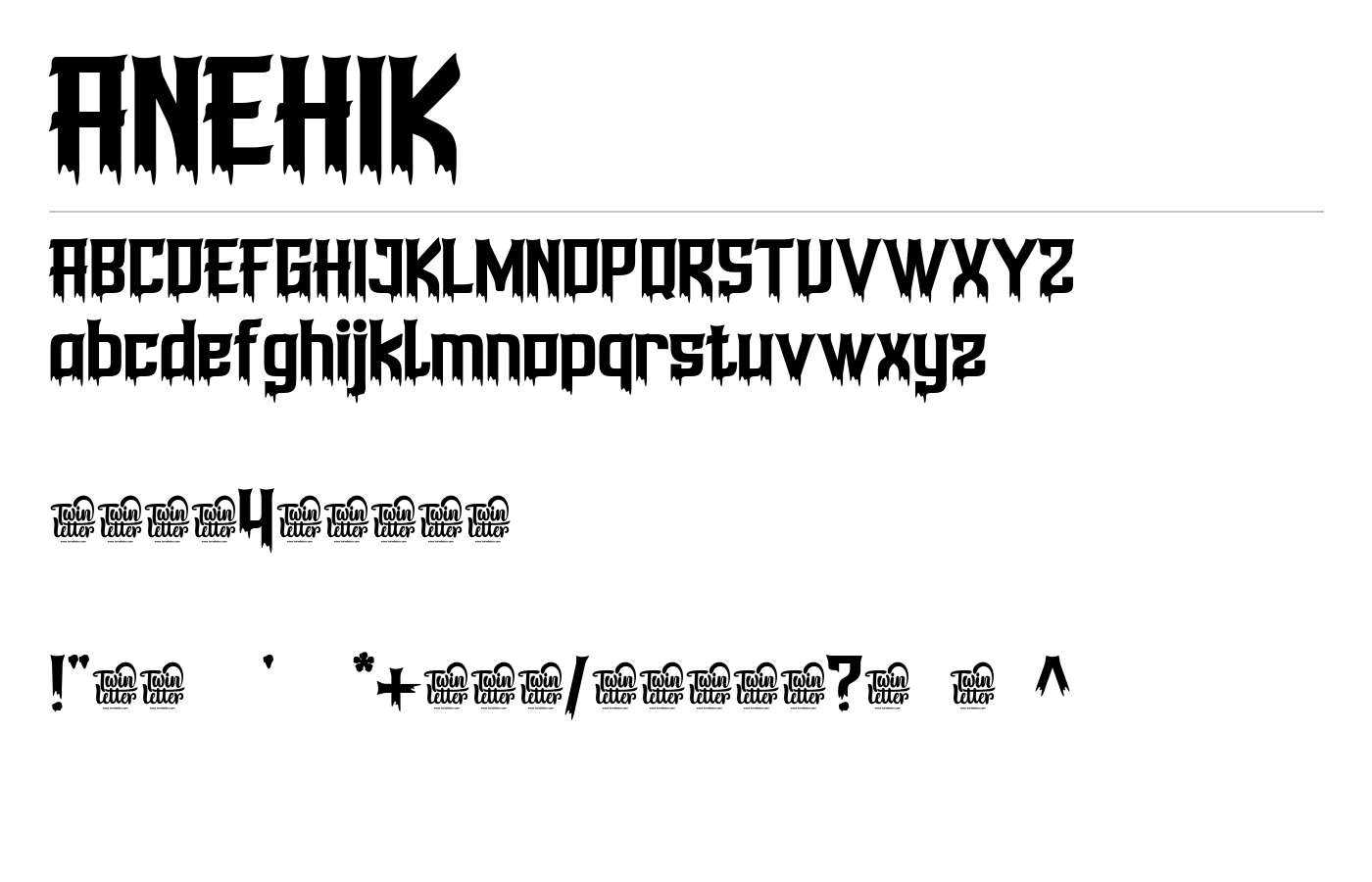
ANEHIK is a bold, condensed display font with sharp, jagged edges that give it a dramatic, horror-inspired vibe. Its dripping stroke details create a striking, eerie effect perfect for spooky themes and attention-grabbing headlines. This font works best for Halloween designs, posters, and branding that aim to evoke a dark, intense atmosphere.
ANEHIK Font
About ANEHIK Font